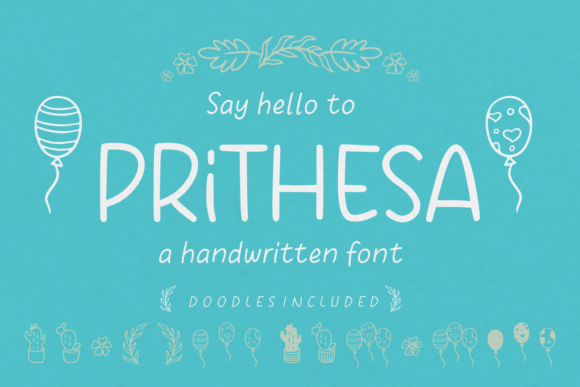
In a world where uniformity reigns supreme, Prithesa Font bursts onto the scene as a beacon of individuality and flair. This enchanting script, meticulously crafted by the talented Situjuh, is a symphony of flowing lines and graceful curves, inviting you to add a touch of enchantment to your creative endeavors.
Prithesa's captivating presence is sure to leave an indelible mark on your designs, whether you're weaving words into heartfelt letters, crafting captivating logos, or conjuring eye-catching social media posts. Let your imagination soar as you explore the endless possibilities Prithesa holds, unlocking a realm of captivating designs that resonate with your unique style and vision.
With Prithesa Font as your creative companion, you'll embark on a journey through a world of aesthetics, where elegance and charm dance together in perfect harmony. Its meticulously designed characters, each a work of art in itself, will breathe life into your words, transforming them into captivating expressions of your thoughts and emotions.
Embrace the allure of Prithesa Font, and watch as your creative visions take flight. Let its enchanting aura cast a spell on your audience, drawing them into a world of beauty and enchantment. Experience the magic of Prithesa Font today and unlock the door to a world of captivating designs that will leave a lasting impression.